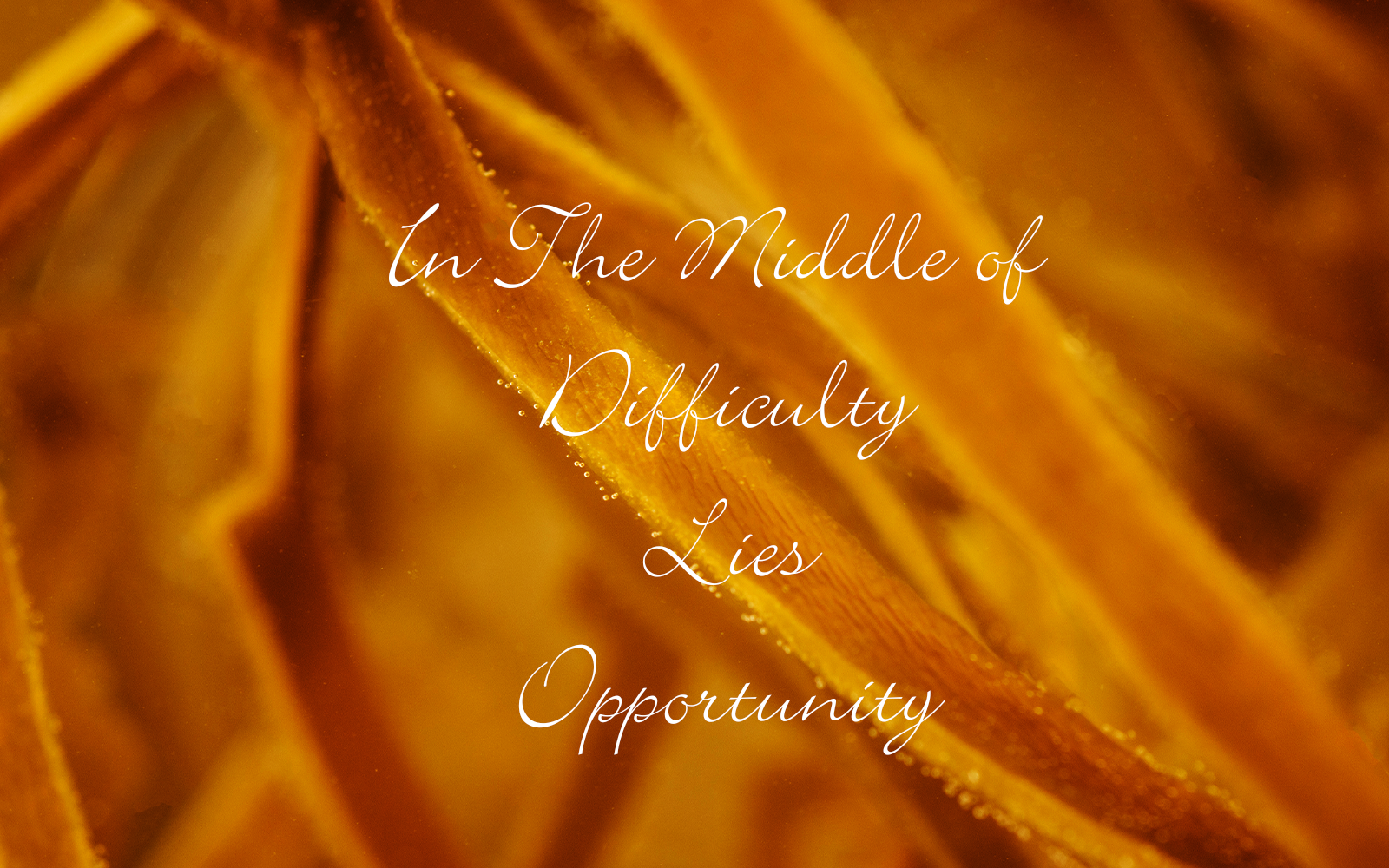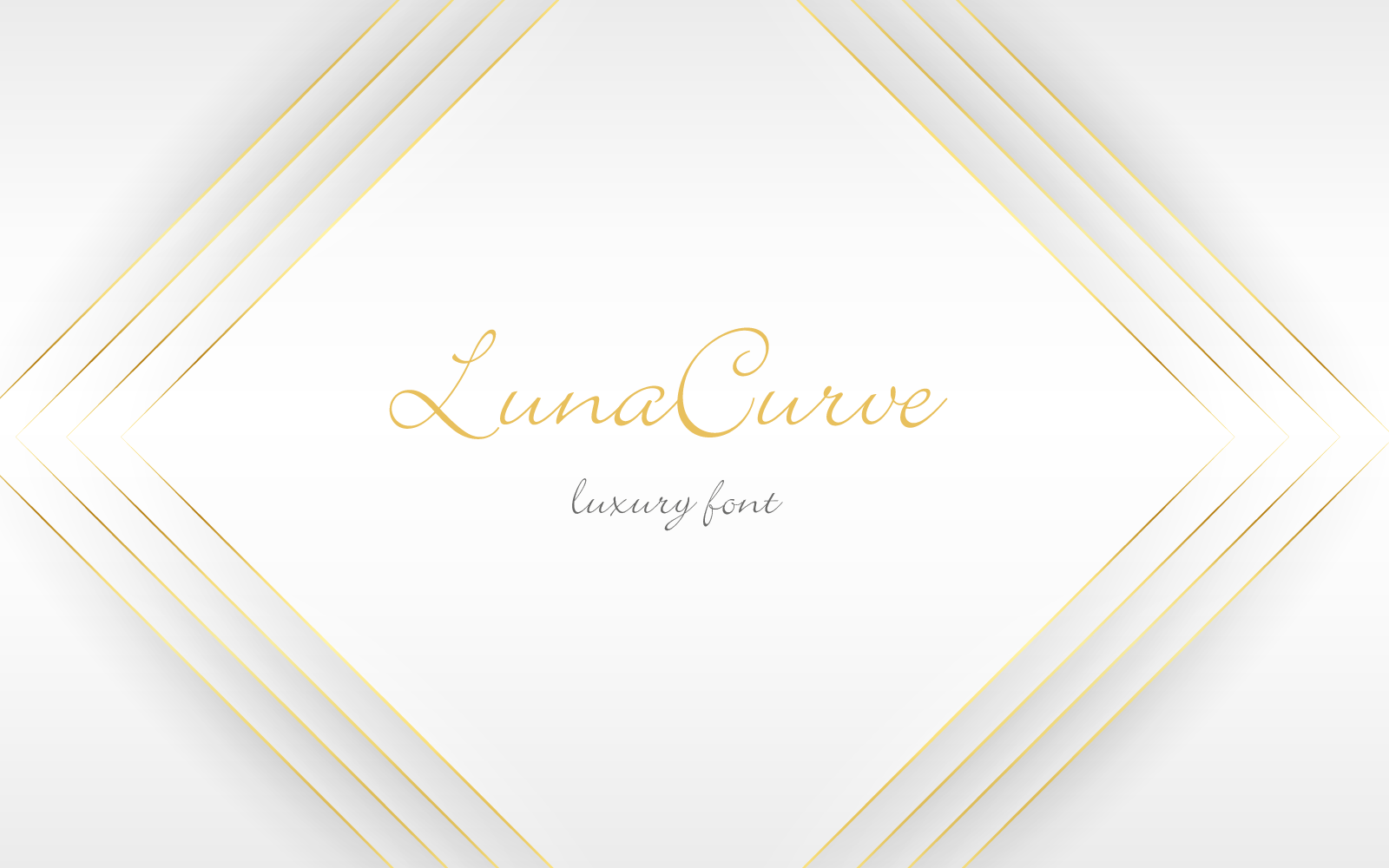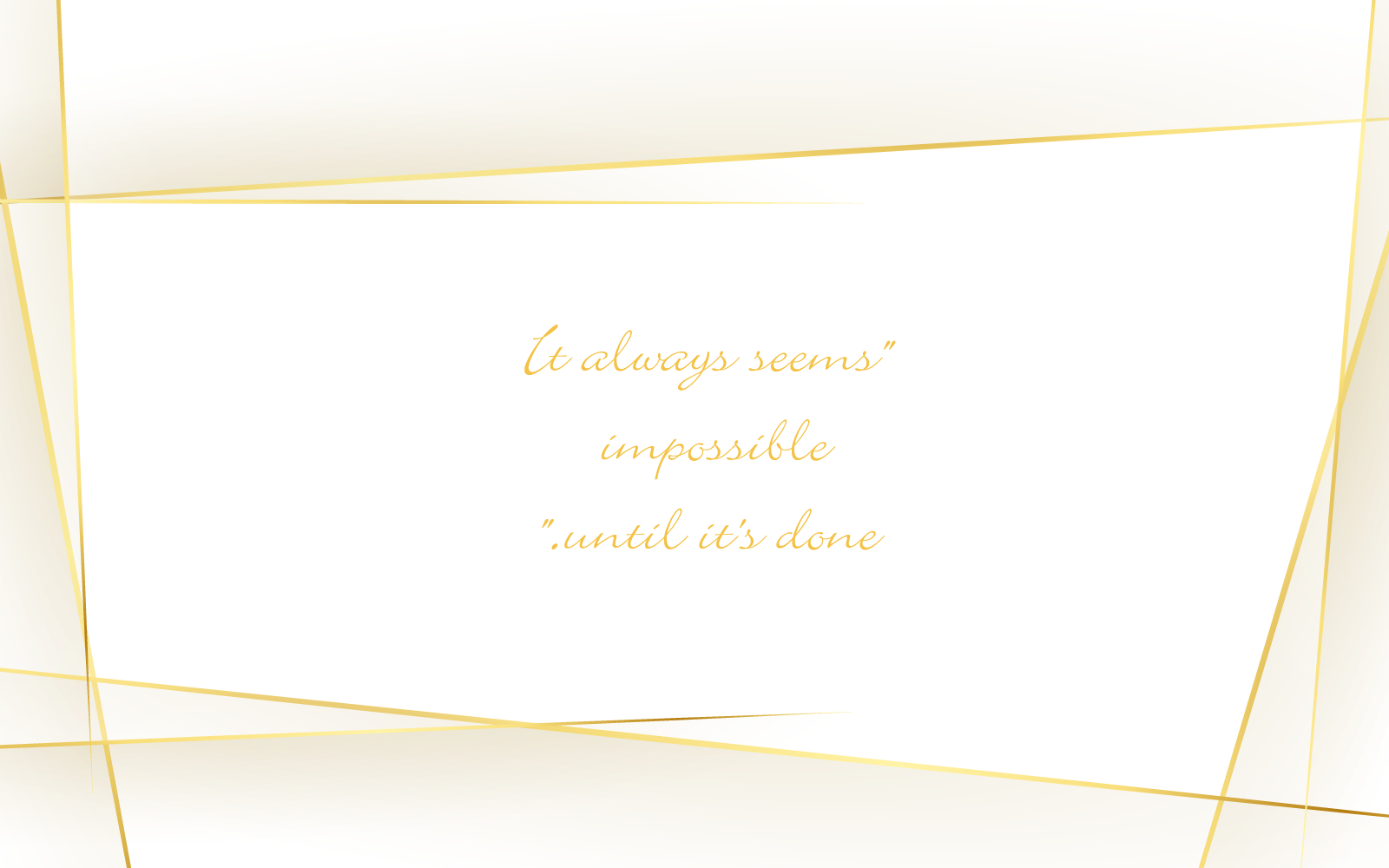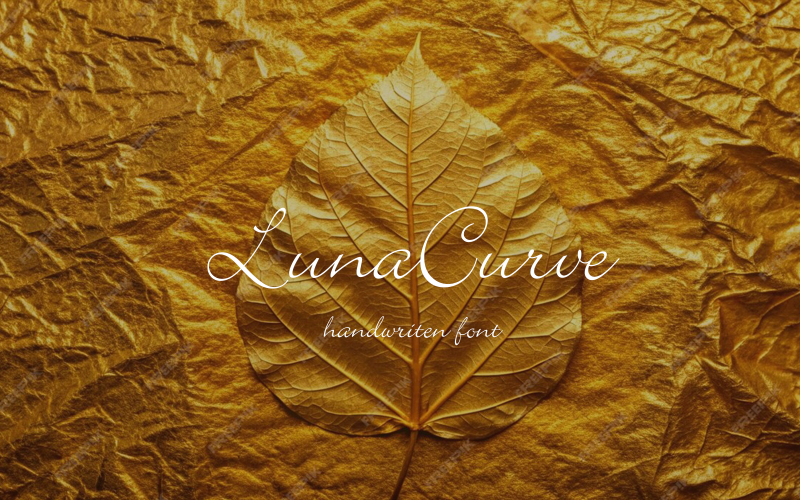
LunaCurve-creative font-011-24 Font
This refined, modern typeface mimics the natural flow of handwritten text, with thin, elegant strokes and creative flourishes. Its sophisticated curves and subtle artistic touches make it ideal for high-end businesses and creative industries.
Perfectly balancing professionalism and artistic expression, the font conveys a sense of luxury and innovation. Whether for upscale branding or artistic projects, it brings a timeless, yet contemporary charm to any design.